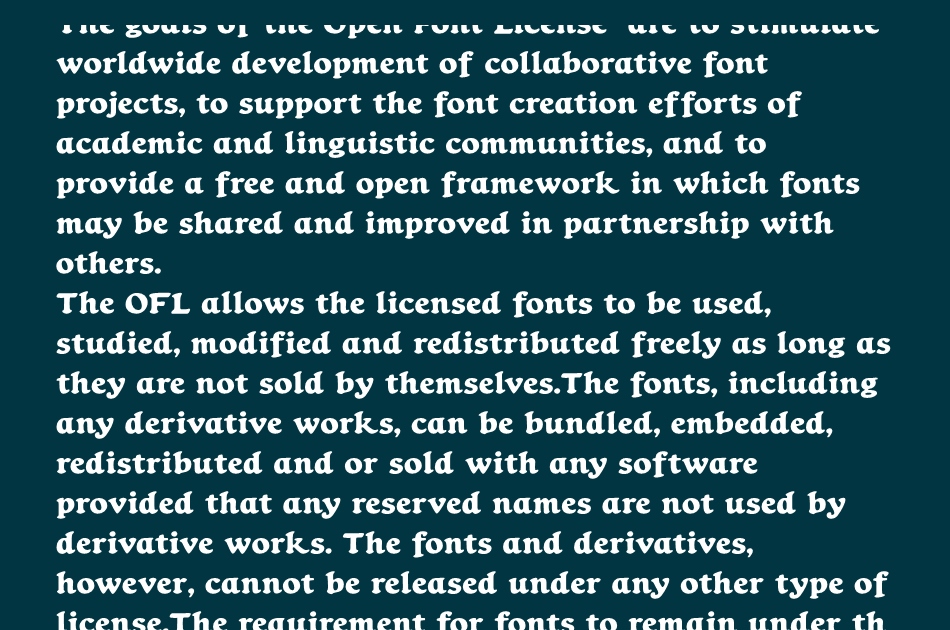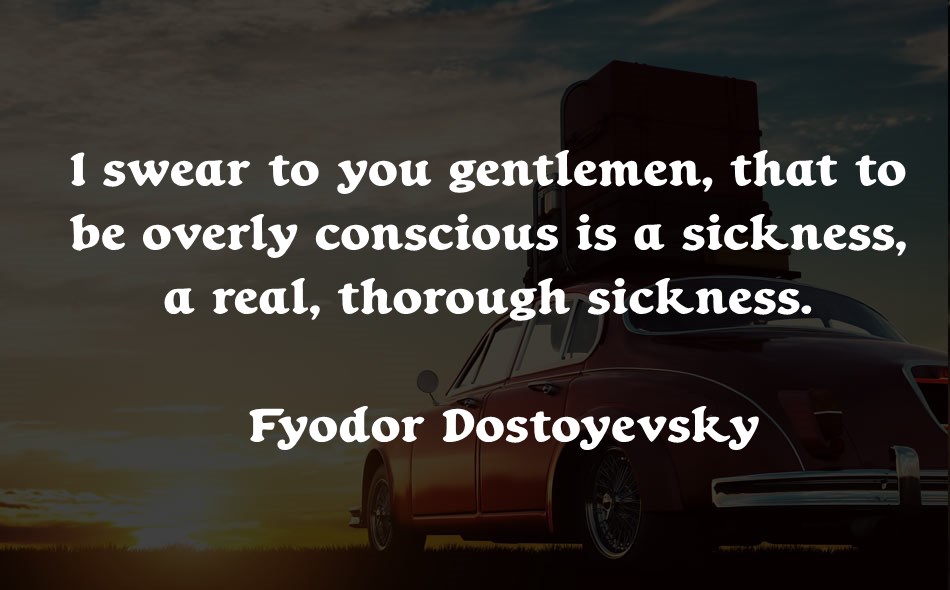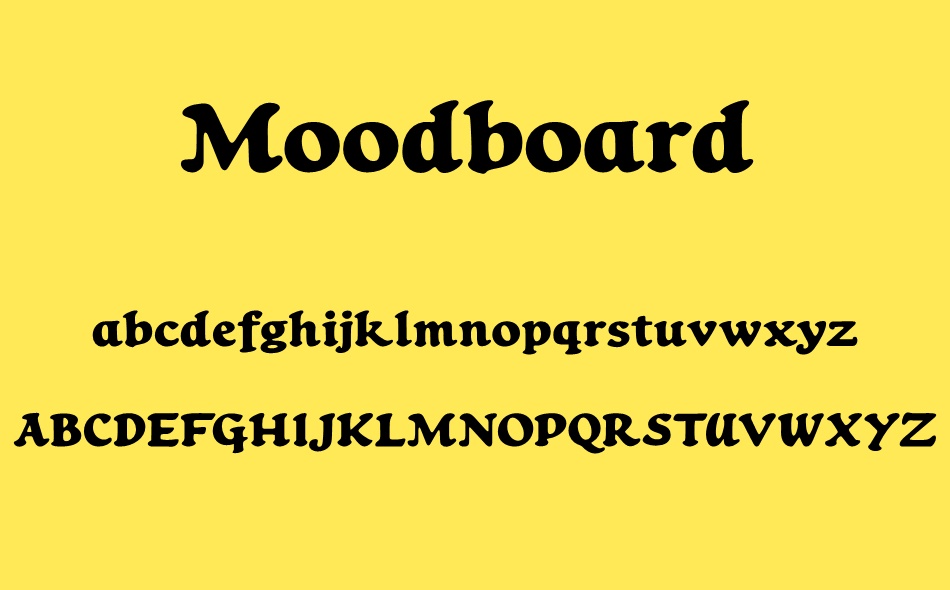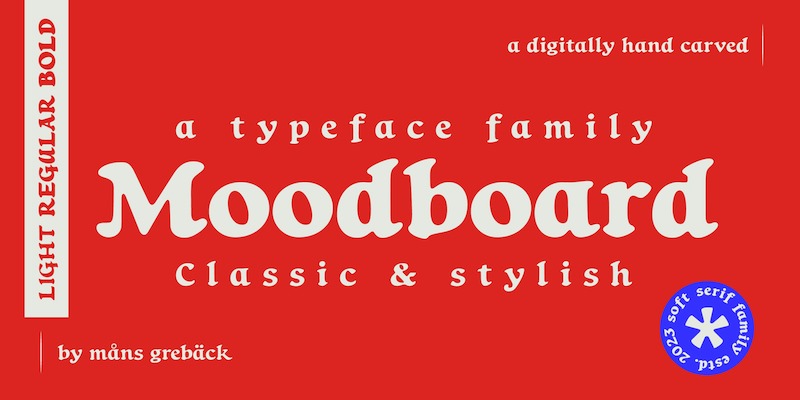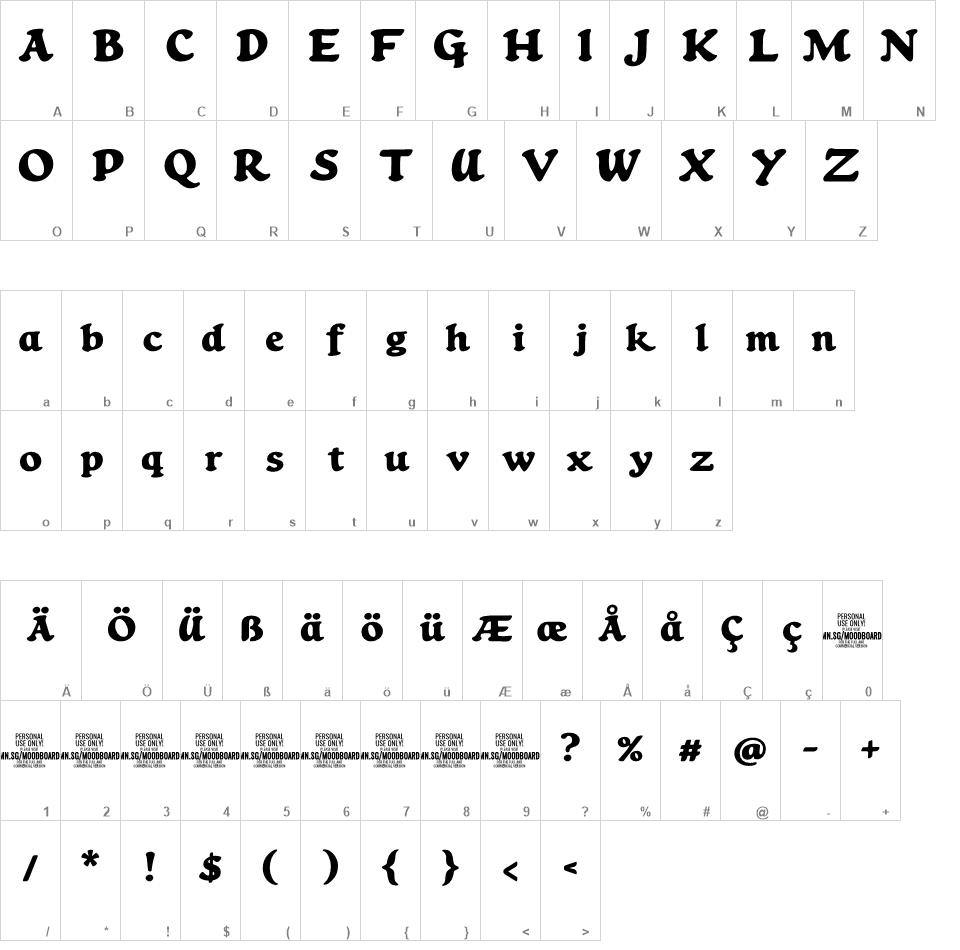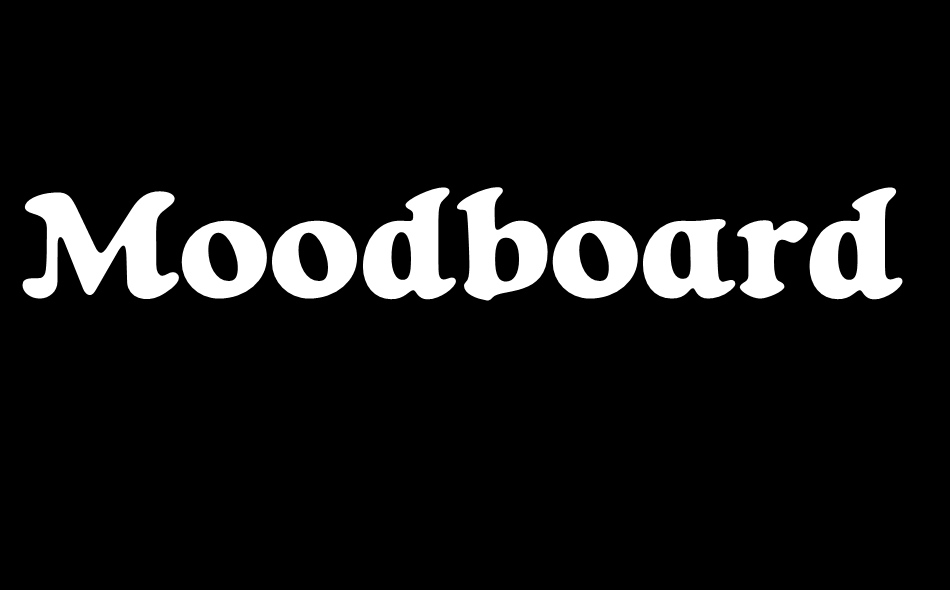
Moodboard font
Moodboard is a unique blend of hand-drawn and AI-generated design, bringing a fresh twist to the retro serif font. With bold rounded letterforms and a funky vibe, Moodboard is perfect for young-at-heart audiences. Its combination of sketch and machine learning makes it usable and versatile, while still retaining its cool new-retro feel. Use Moodboard in logotypes, headlines, and graphics for a standout, youthful look. Its designer Mans Greback has created an exceptional mix of vintage and modern design elements in Moodboard font. Choose Moodboard for your next project to add a touch of fun and boldness to your designs!
The Moodboard family consists of six high-quality fonts: Regular, Italic, Light, Light Italic, Bold and Bold Italic
The font is built with advanced OpenType functionality and has a guaranteed top-notch quality, containing stylistic and contextual alternates, ligatures and more features; all to give you full control and customizability. It has extensive lingual support, covering all Latin-based languages, from Northern Europe to South Africa, from America to South-East Asia. It contains all characters and symbols you'll ever need, including all punctuation and numbers.